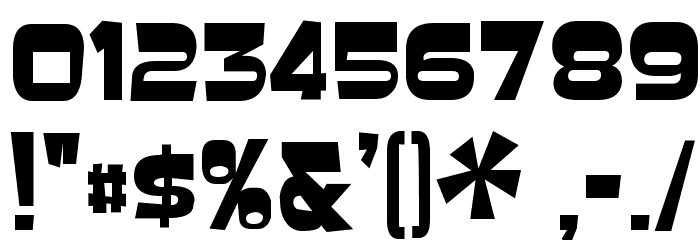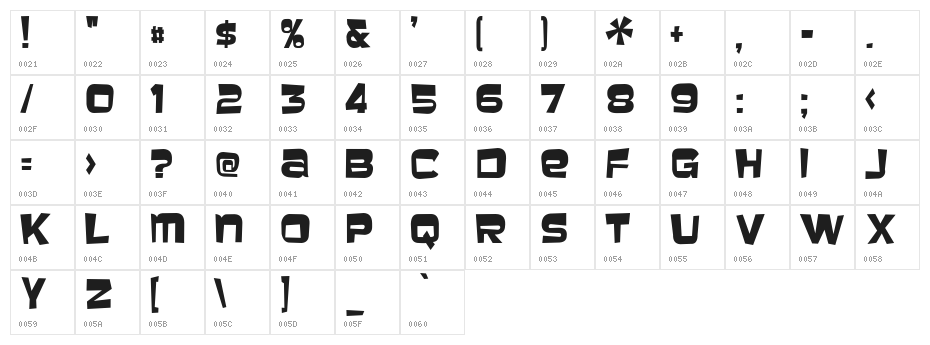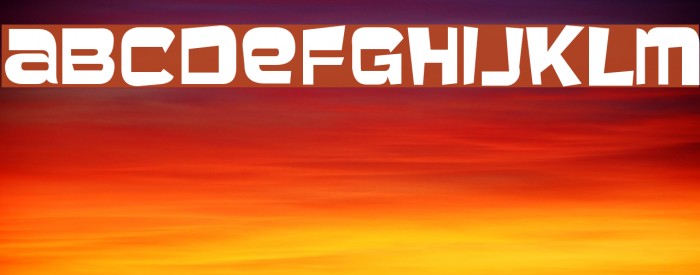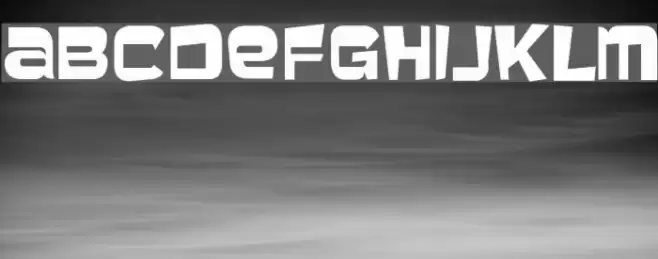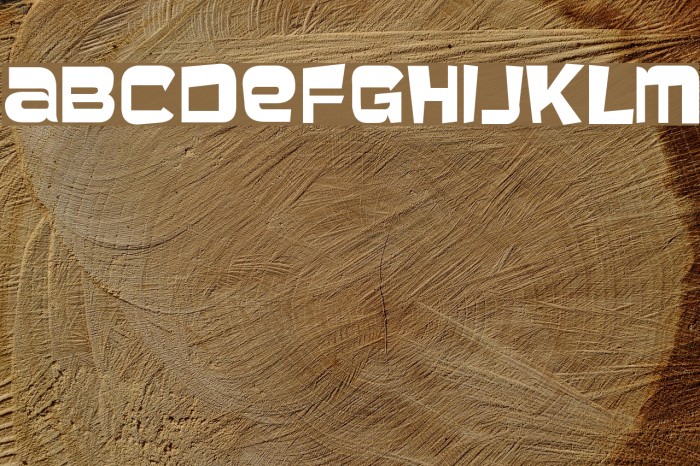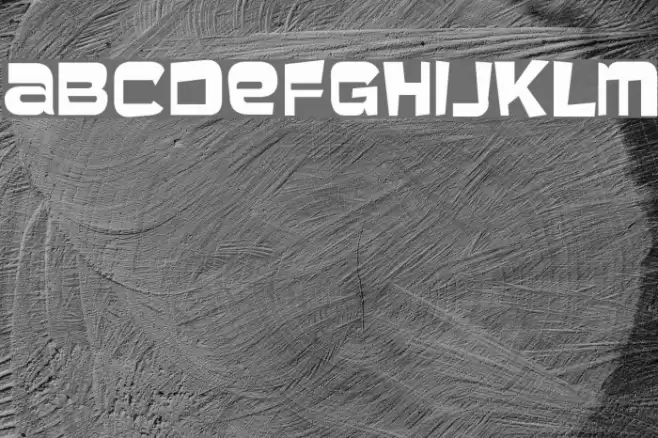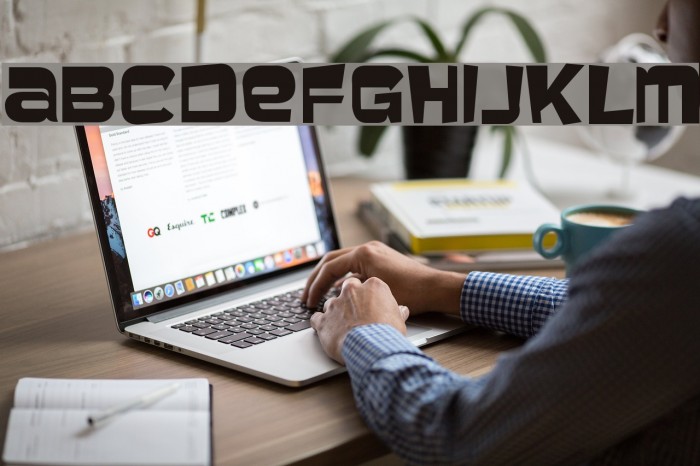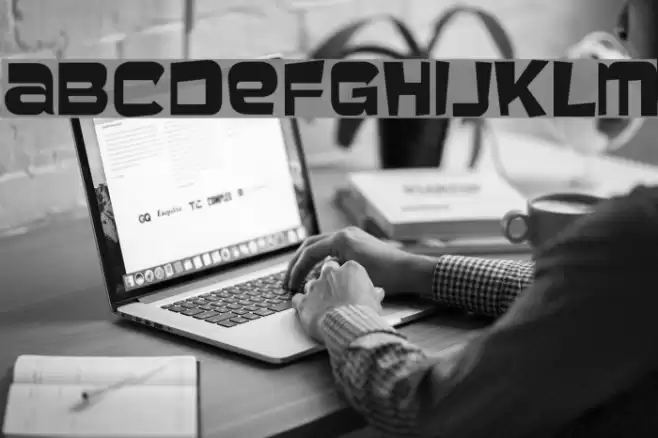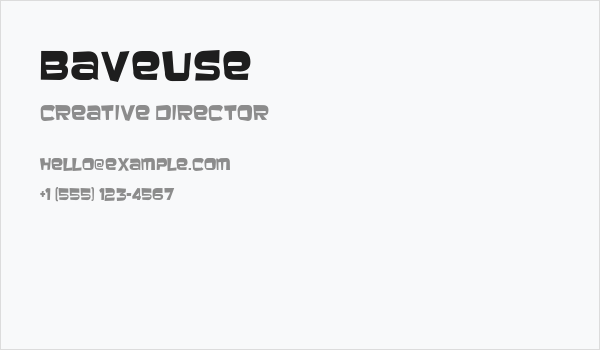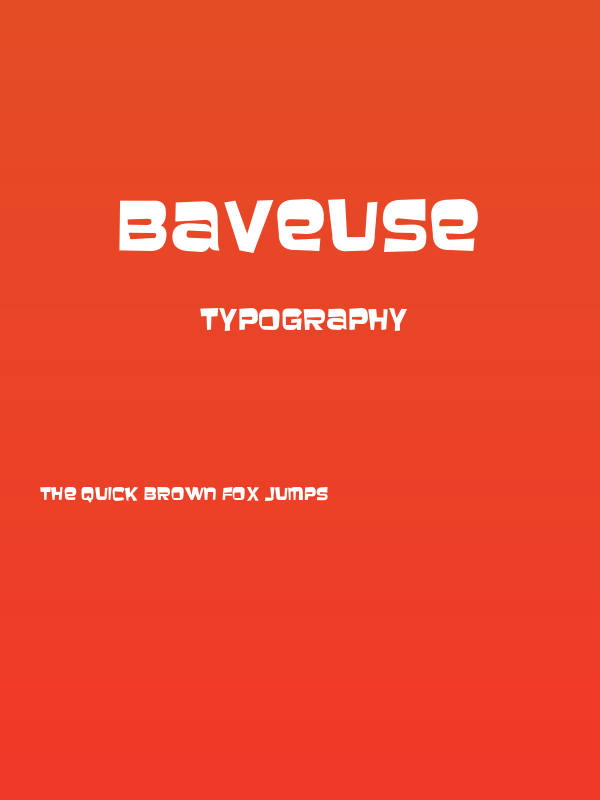
Baveuse Font
Baveuse Description
This font features a bold and playful design with a unique, slightly distorted appearance. The characters have a chunky, geometric style with varying angles and curves that create a dynamic and energetic look. The uppercase and lowercase letters maintain a consistent weight, contributing to a cohesive visual impact. The numbers and special characters follow the same design principles, ensuring uniformity across all glyphs. This font's distinctive style makes it stand out, offering a modern and unconventional aesthetic that is both eye-catching and memorable.
| Proposed Projects | Ideal for branding, posters, headlines, and any project seeking a bold, modern look. |